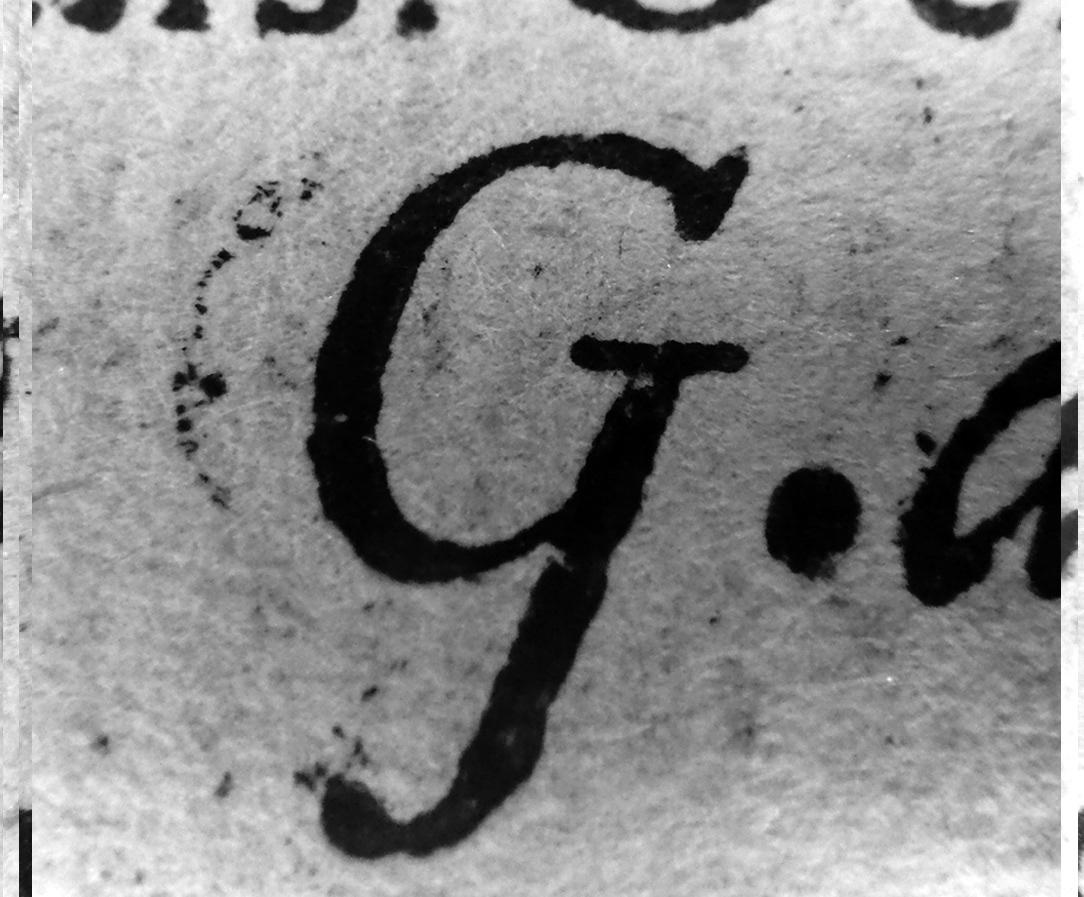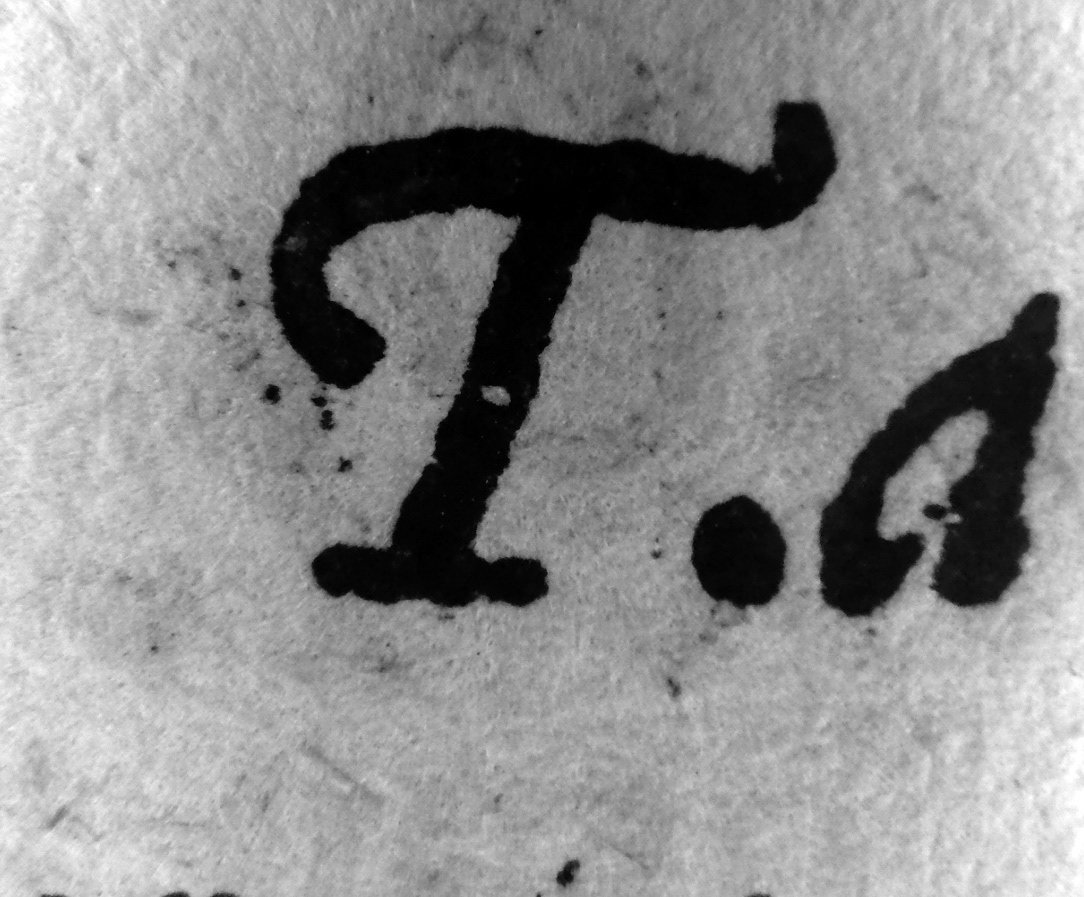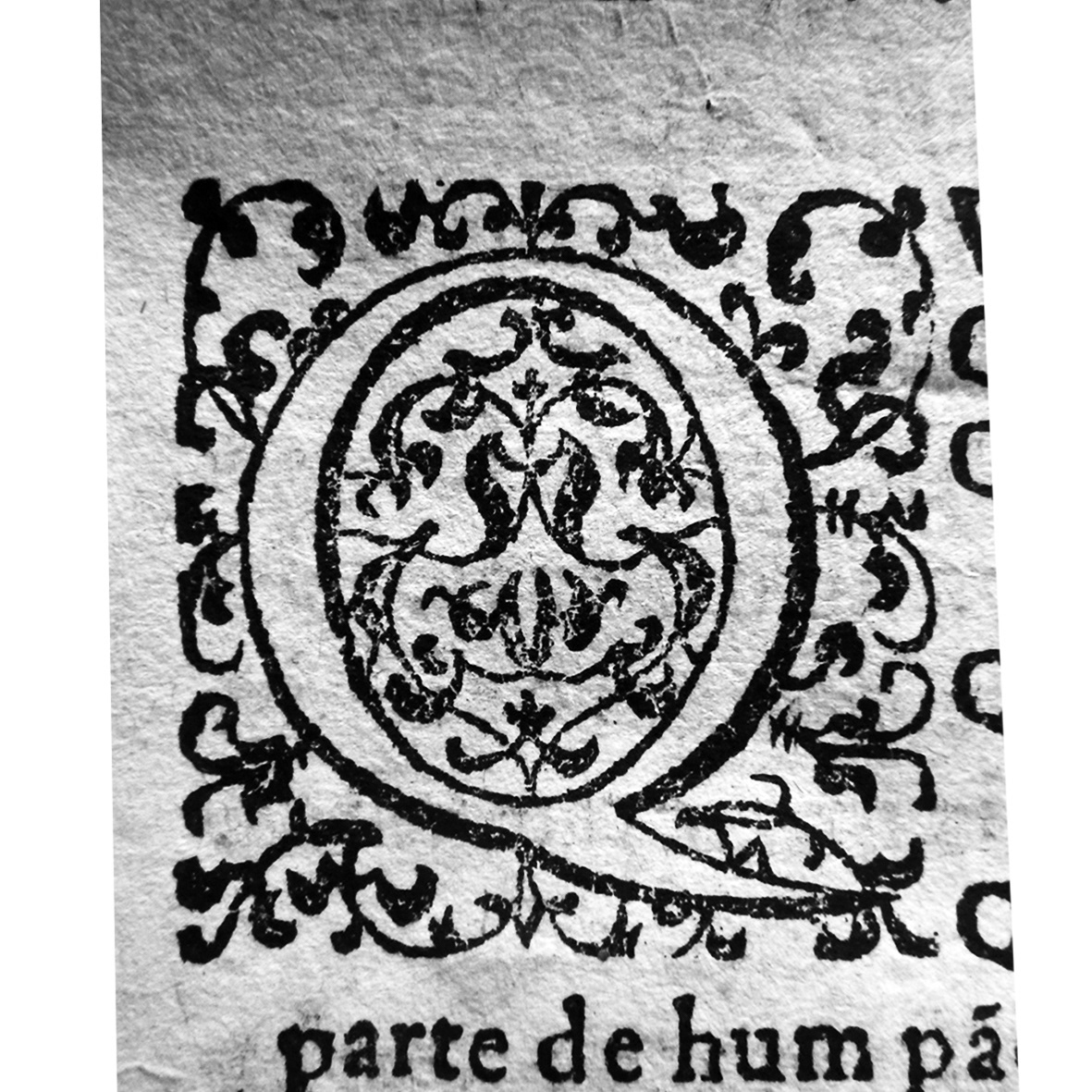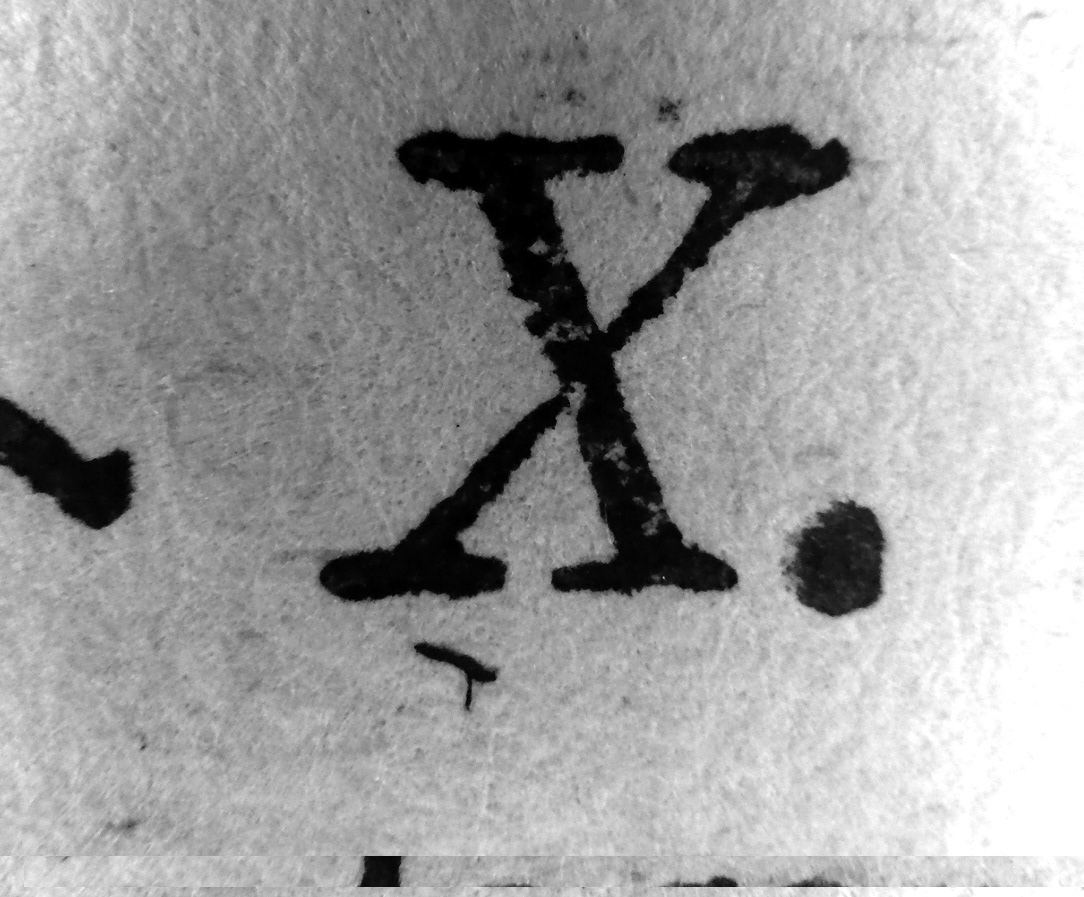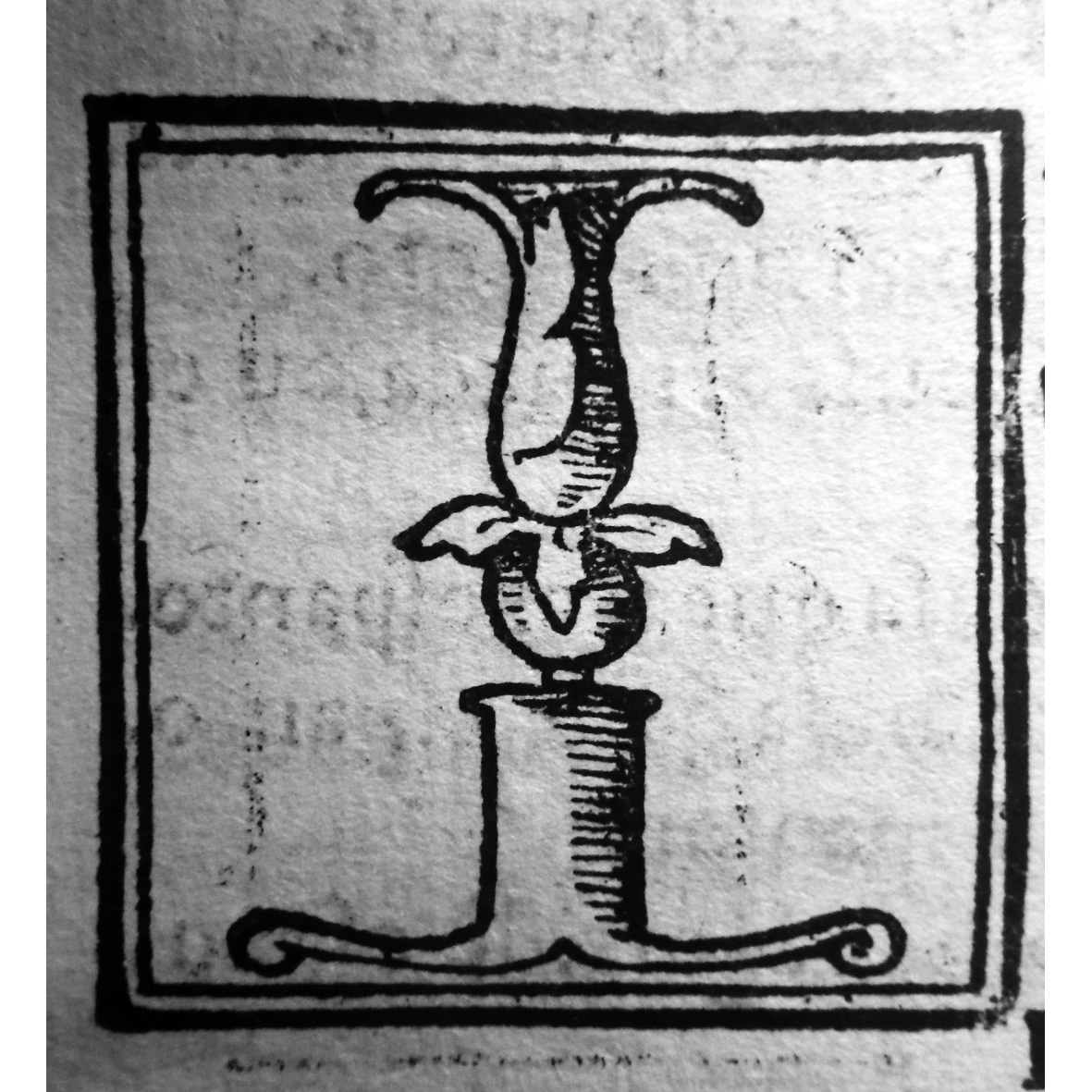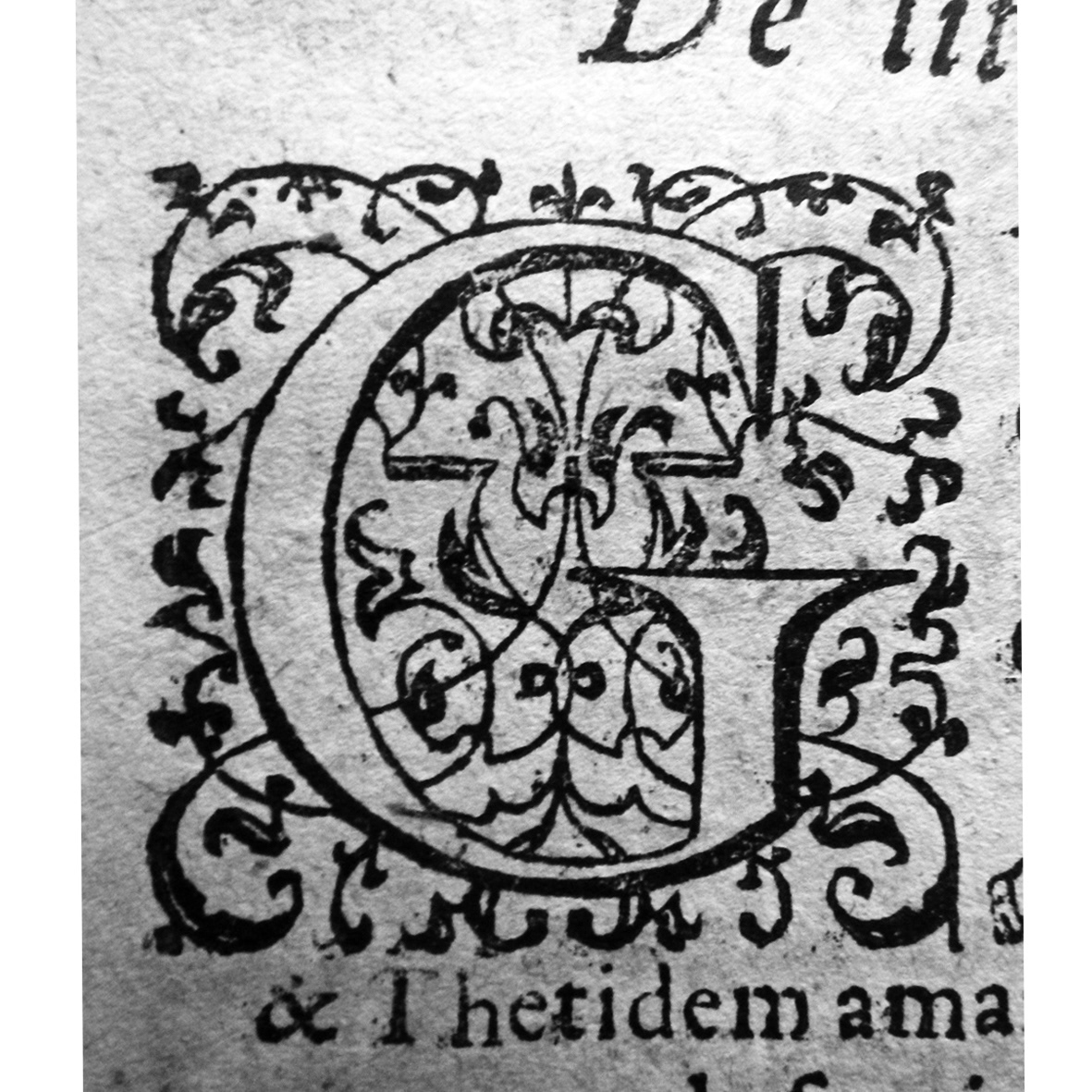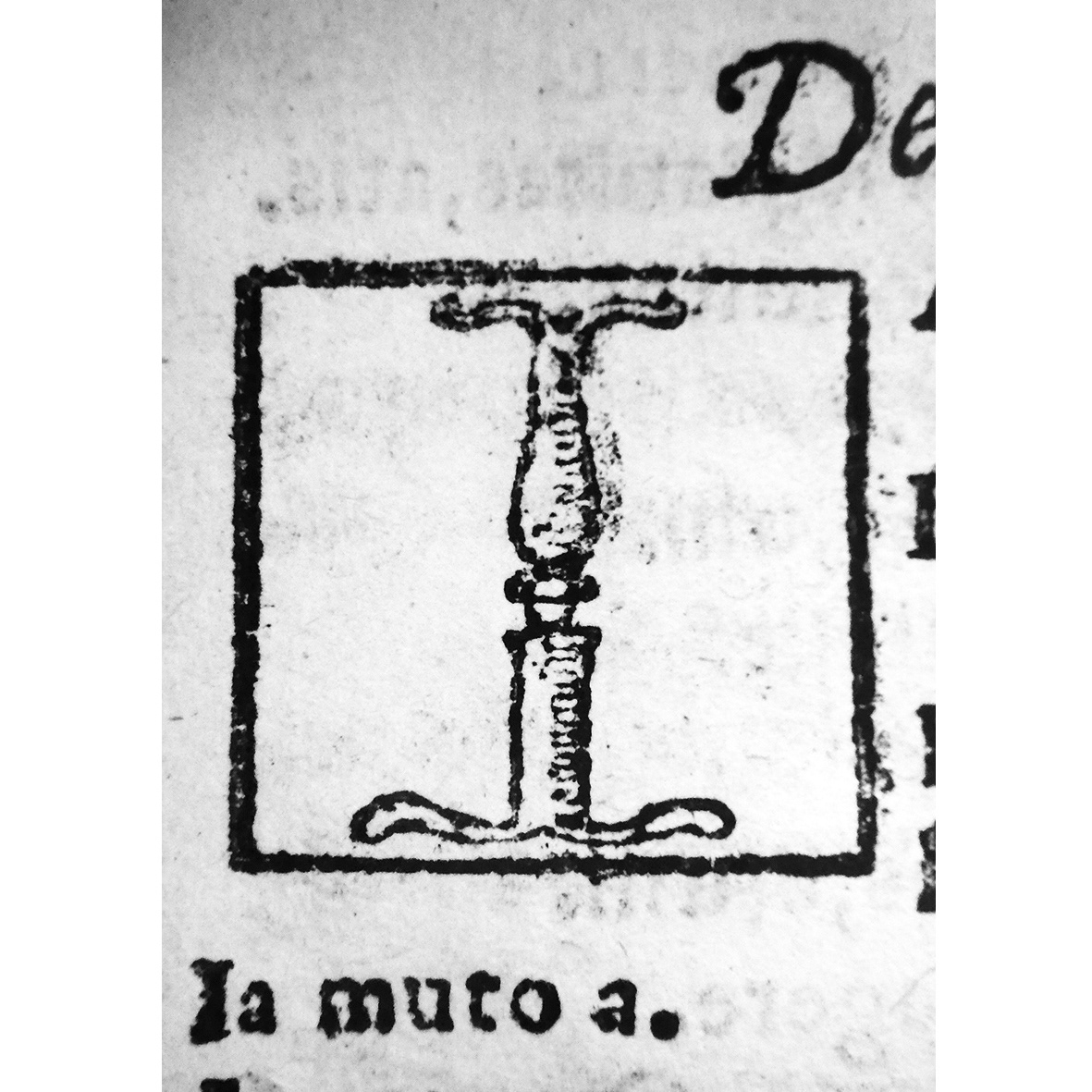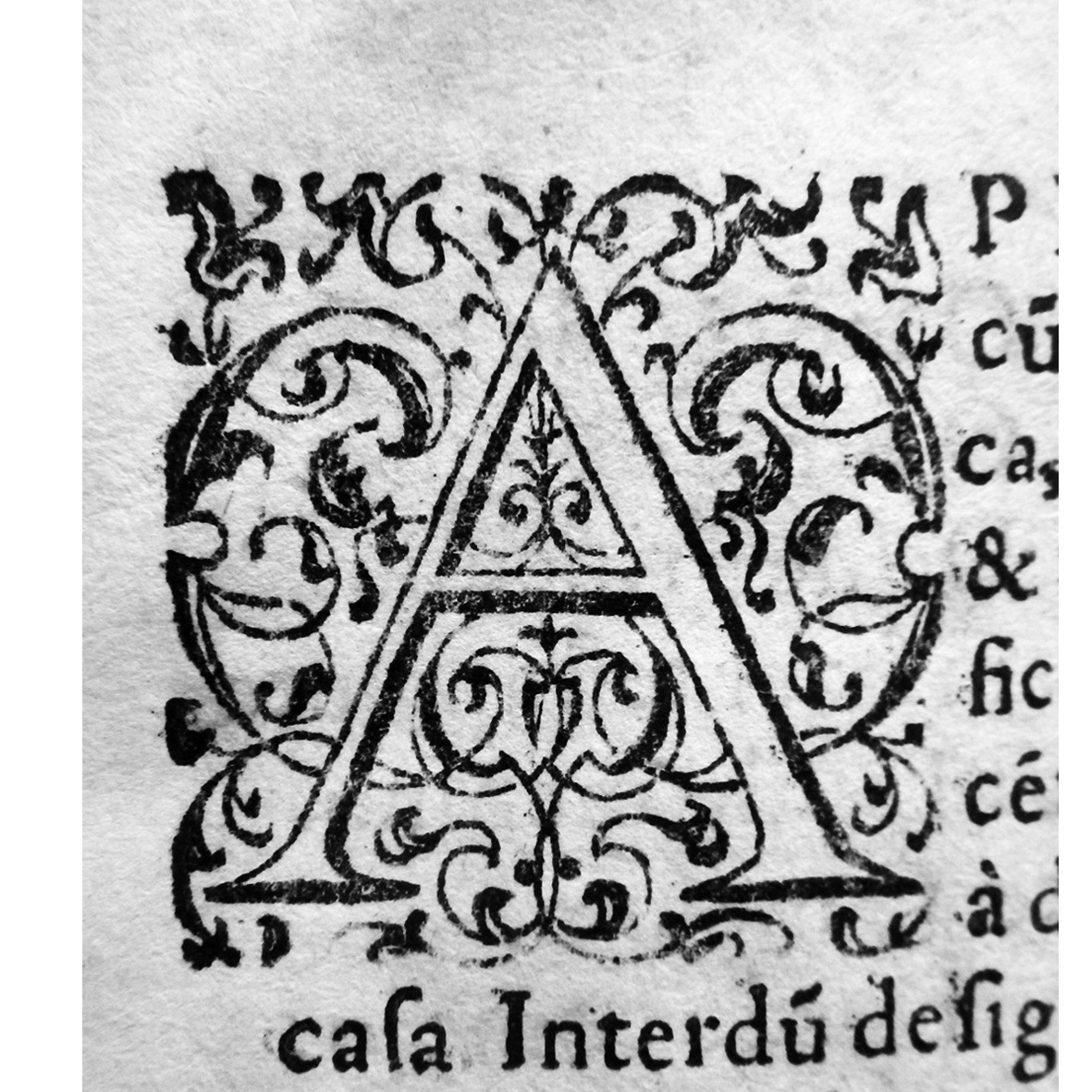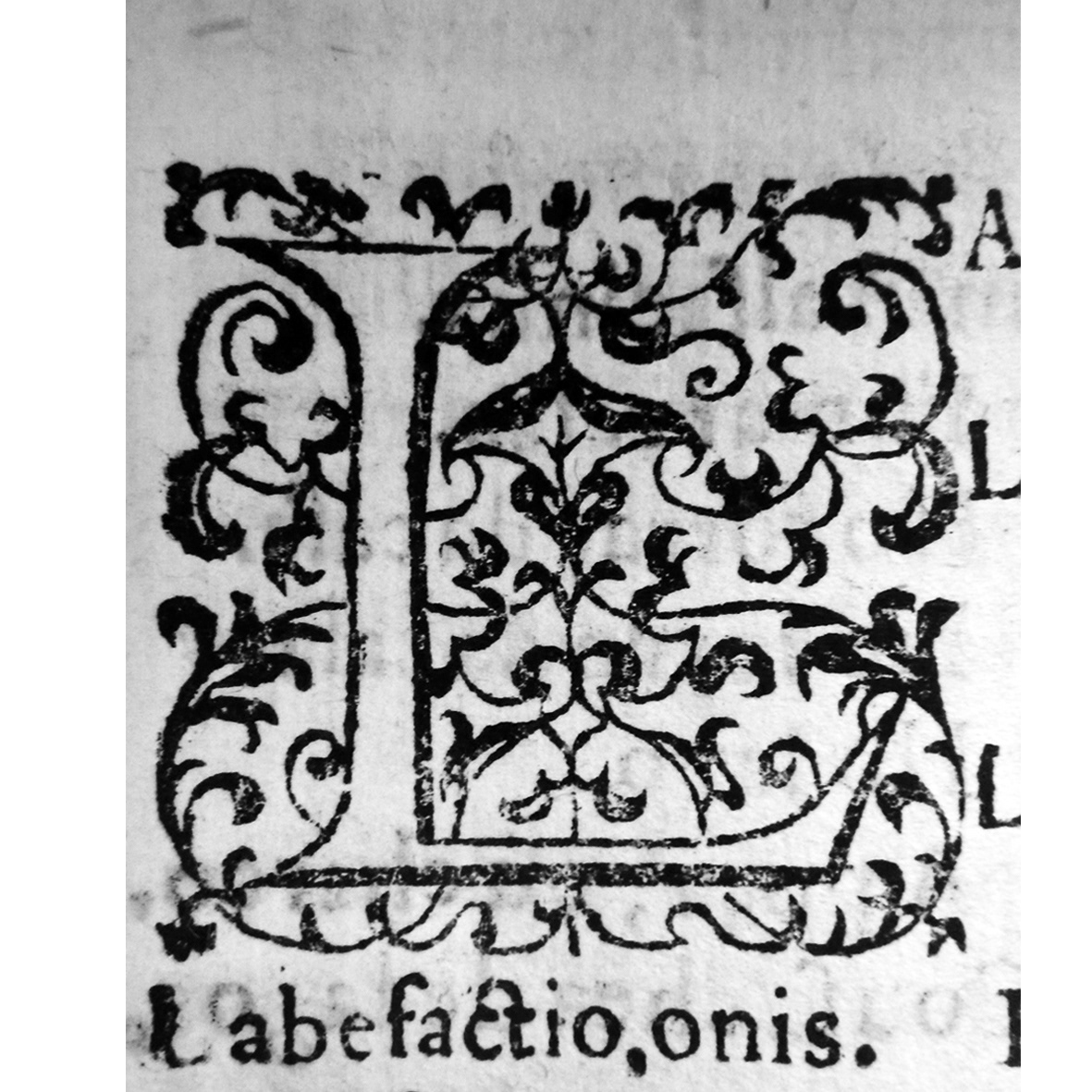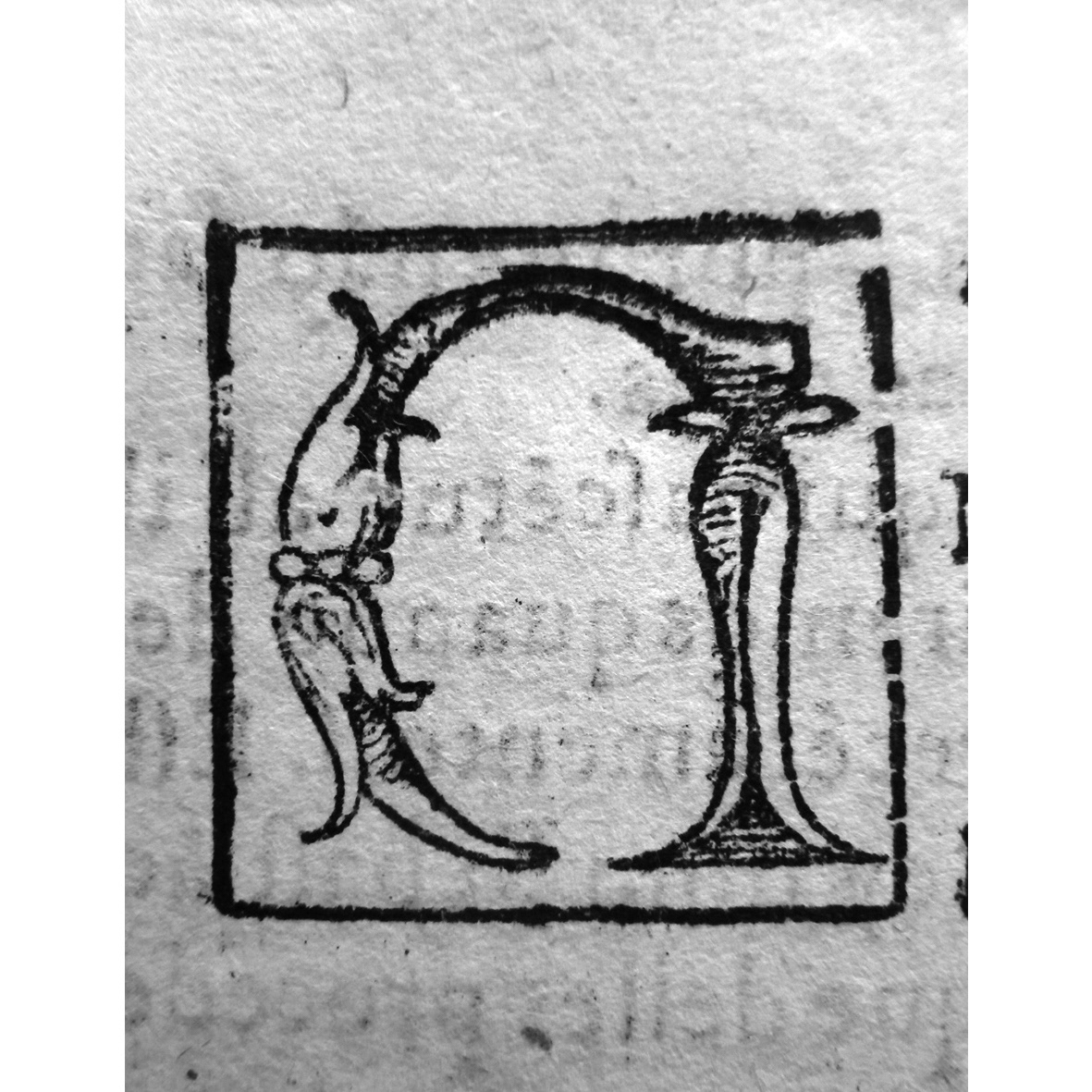
Bibliographical description:
Author: Jerónimo Cardoso & Sebastião Stockamer
Editor: Sebastião Stockamer
Translator: non applicable
Corrector: Sebastião Stockamer
Short Title: Dictionarium latino lusitanicum & vice versa lusitanico latinum
Place of Print: Coimbra
Printer/s: João de Barreira
Publisher: not identified
Date of Print: 1569/70
List of Contents: Frontispiece 1r / Authorization 1v / Privilege 2r / Dedication 3r / Dictionarium 5r / Breve dictionarium / Elegy / De monetis / Colophon / Frontispiece: Dictionarium aliud
Colophon: Conimbricae Apud Ioannem Barrerium septimus idus iulii MDLXIX
Paper: Very irregular thickness
Page Size: 4º - 145 x 195 mm
Column Area: 59 x 164 mm
Printing Area: 123 x 170 mm / 41 lines of text
Quires: 54
Signatures: A - Z / Aa - Kk / AA - MM / A - G (numbering mistakes and pages
out of place - not happening on every copy) De Monetis is not numbered
Guide Letters: non existant
Woodcuts: Illustrated capitulars
Copperplates: non existant
Illustrations: non existant
Printing Color: Black
Catchwords: Yes
Marginalia: Yes / manuscripted
Interlinear Glosses: No
Language/s: Latin + Portuguese
Type/s: Roman + Italic
Indentation: 5mm
Editions: 12 - from 1569/70 to 1694
Assorted signs
Greek Alphabet 10pt
Illustrated Capitals
Italic Alphabet 16pt
Italic Alphabet 20pt
Numerals 16pt
Roman Alphabet 1# 16pt
Roman Alphabet 2# 16pt
Roman Alphabet 8pt
Roman Alphabet 10pt
Roman Alphabet 20pt
Roman Capitals 36pt